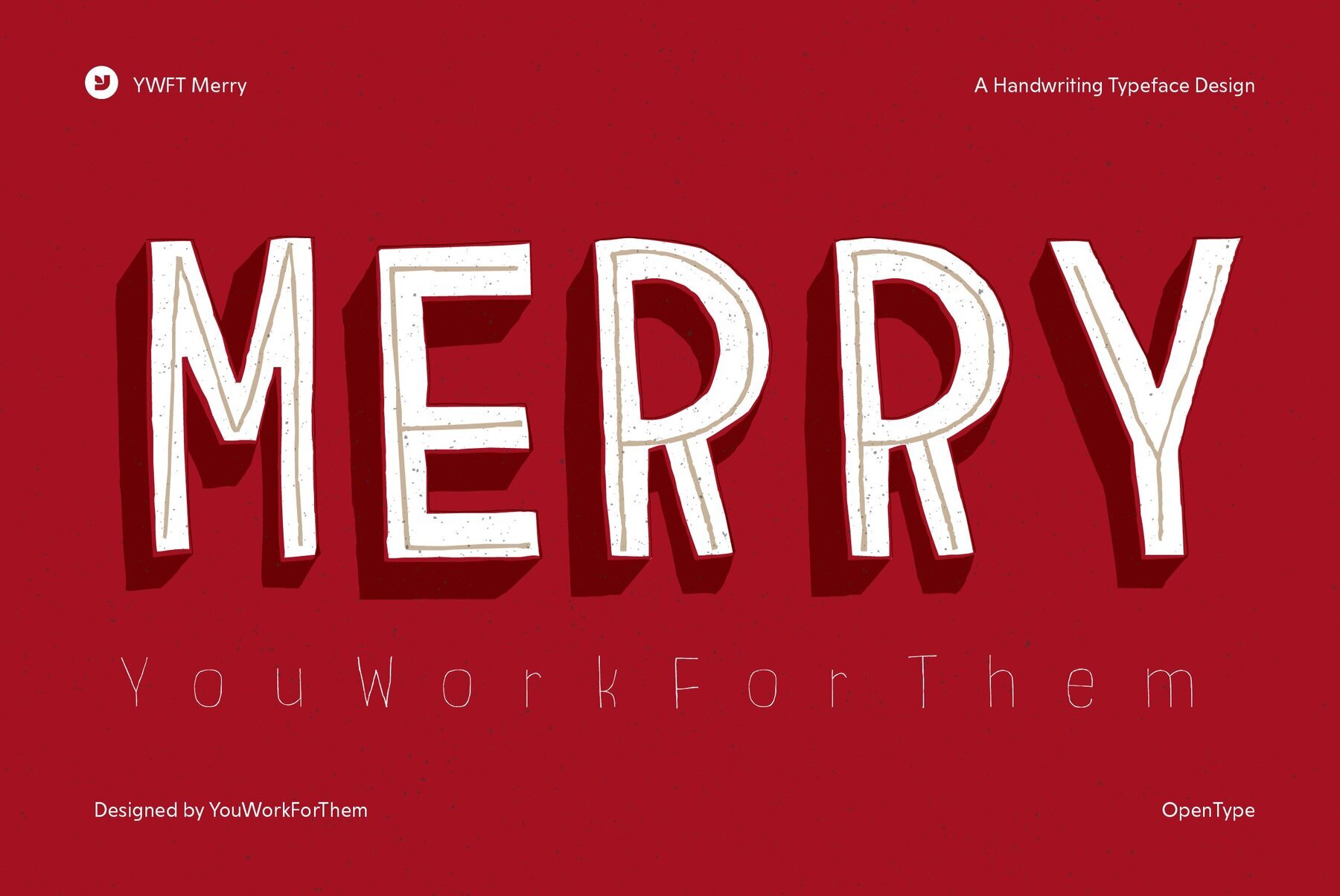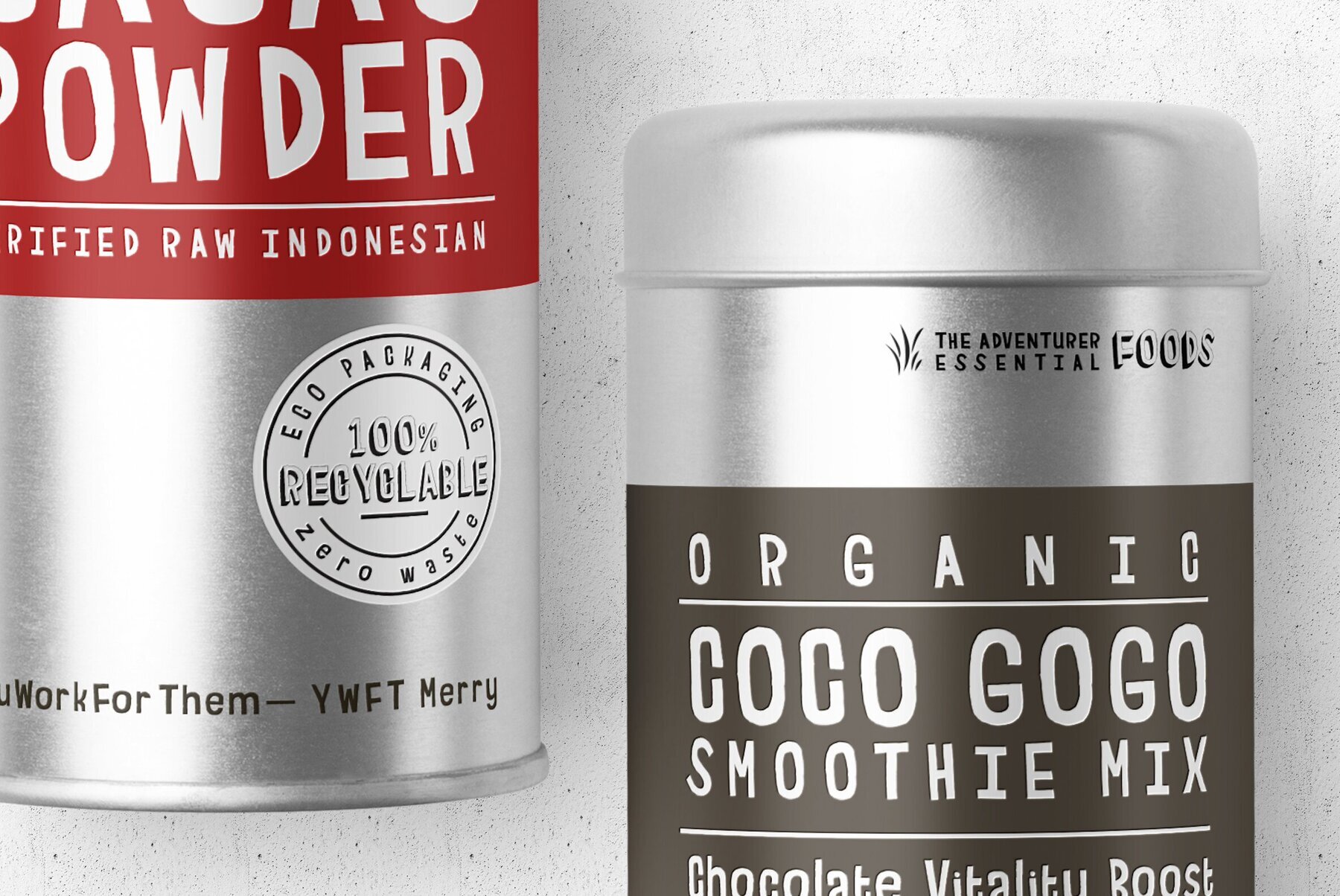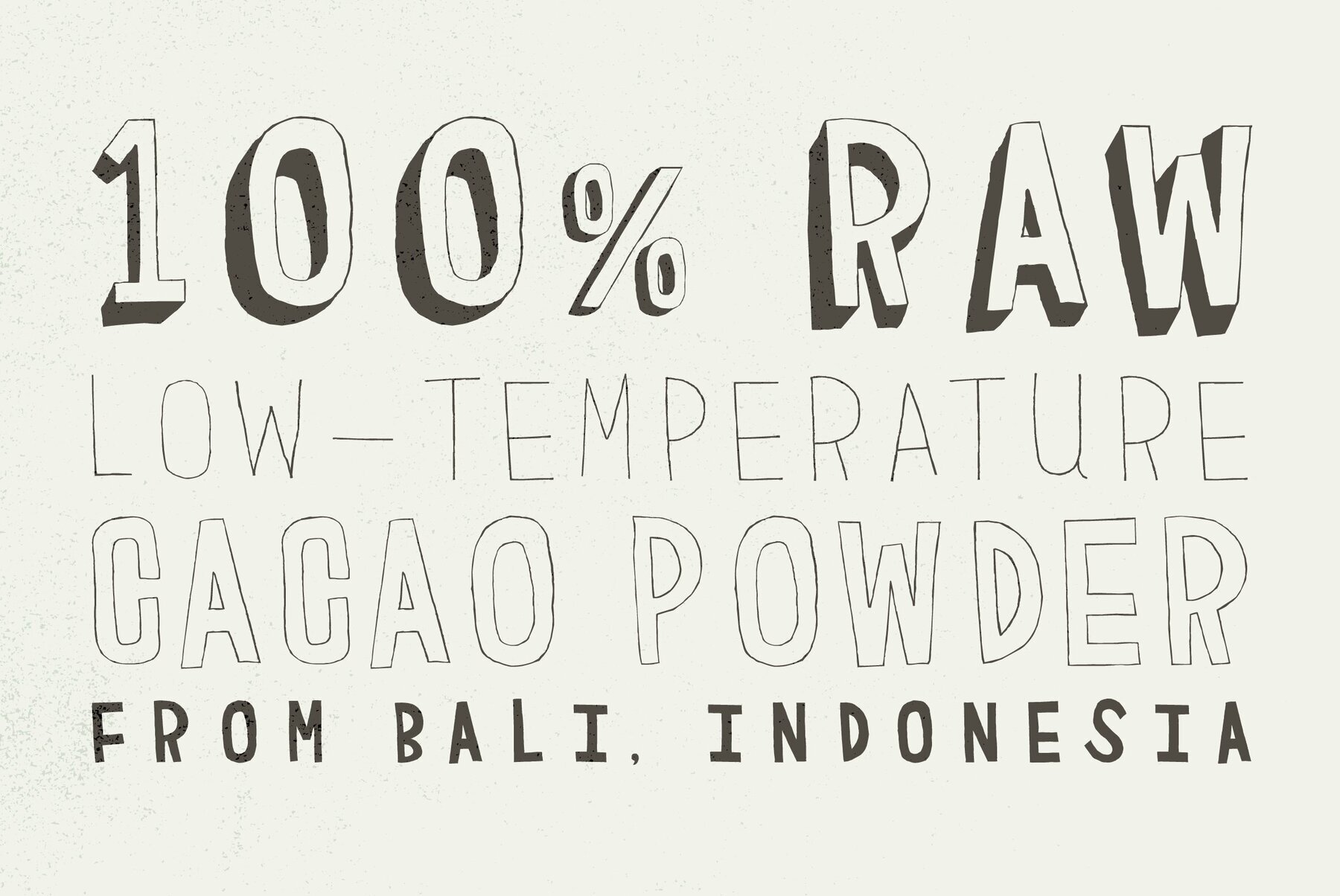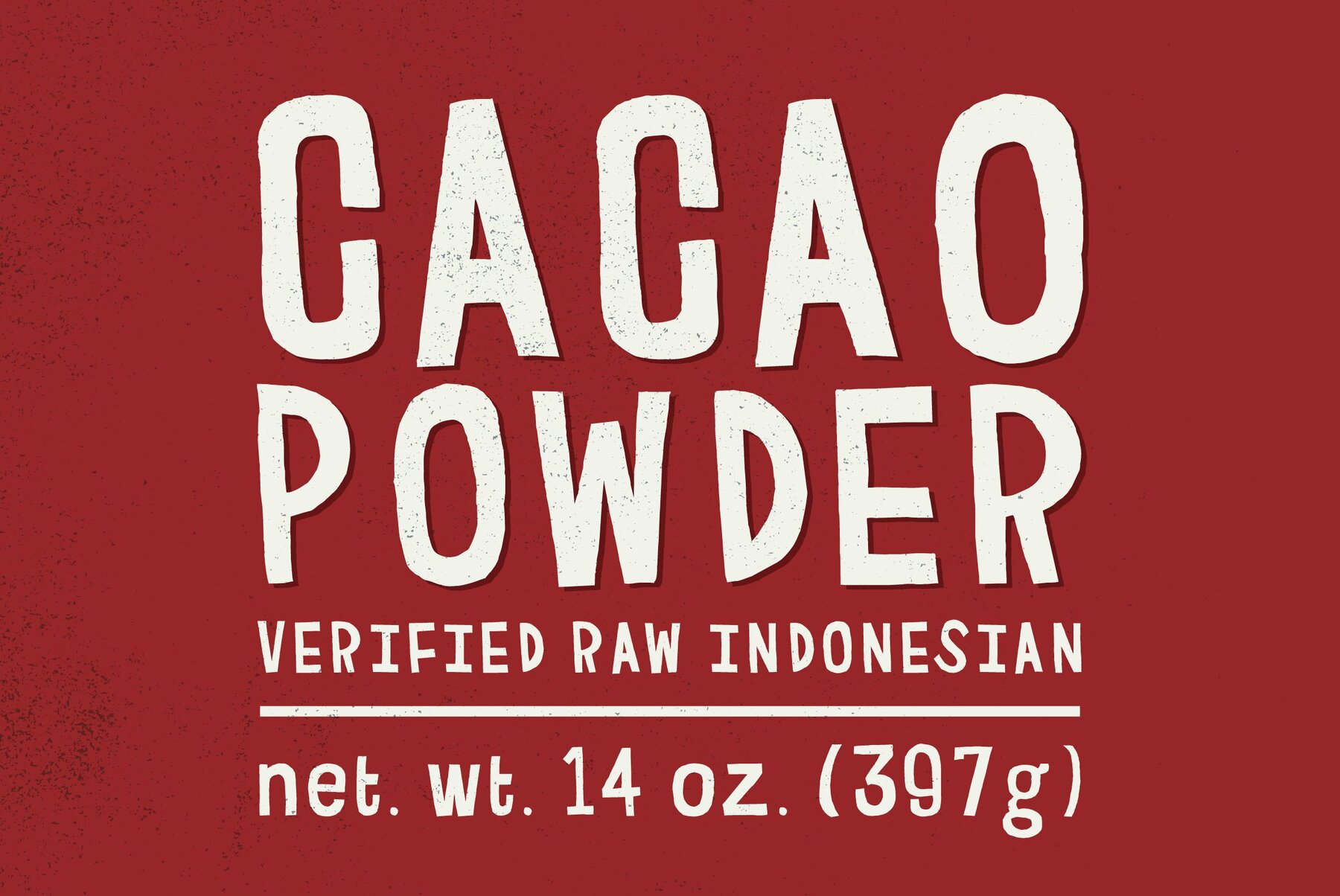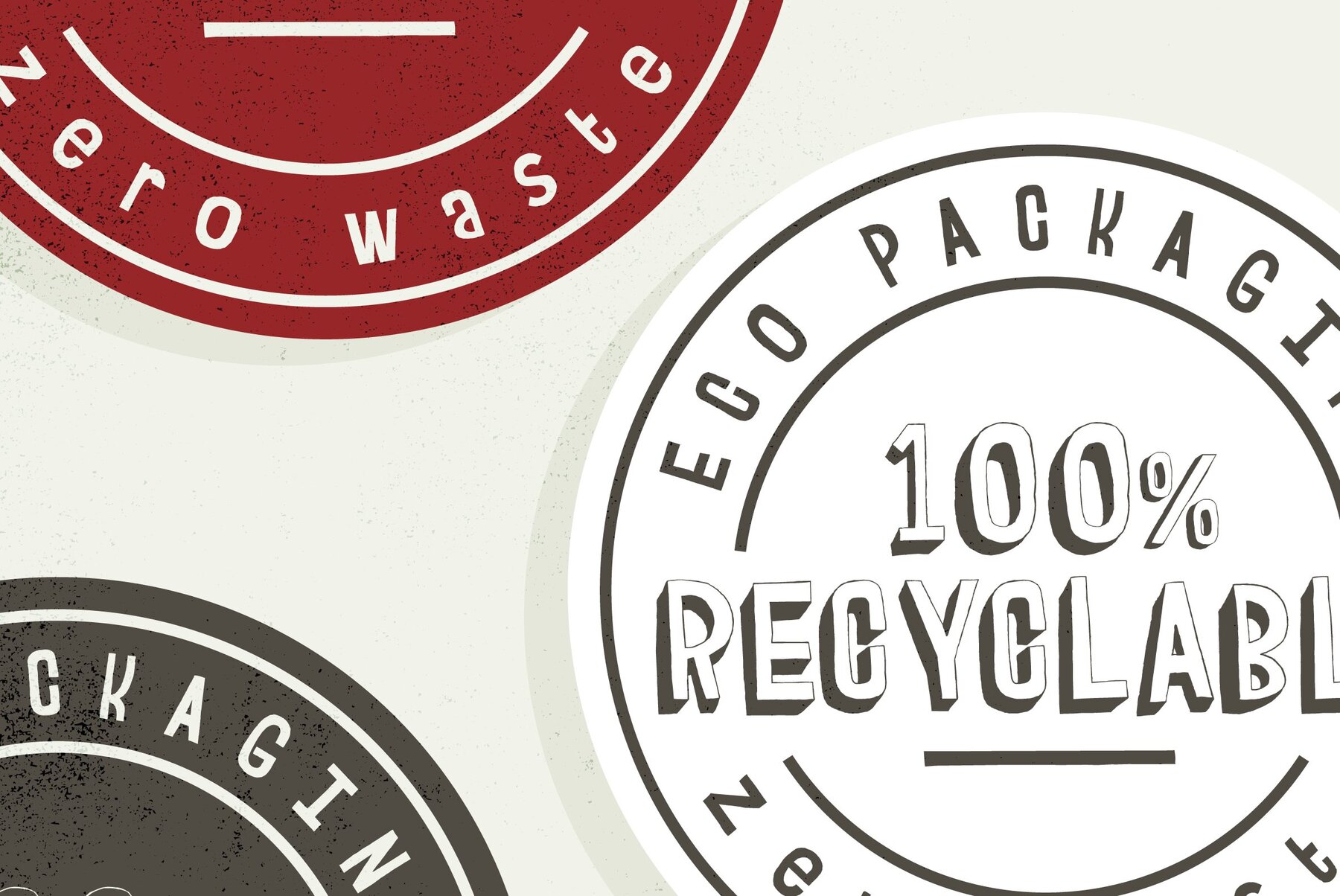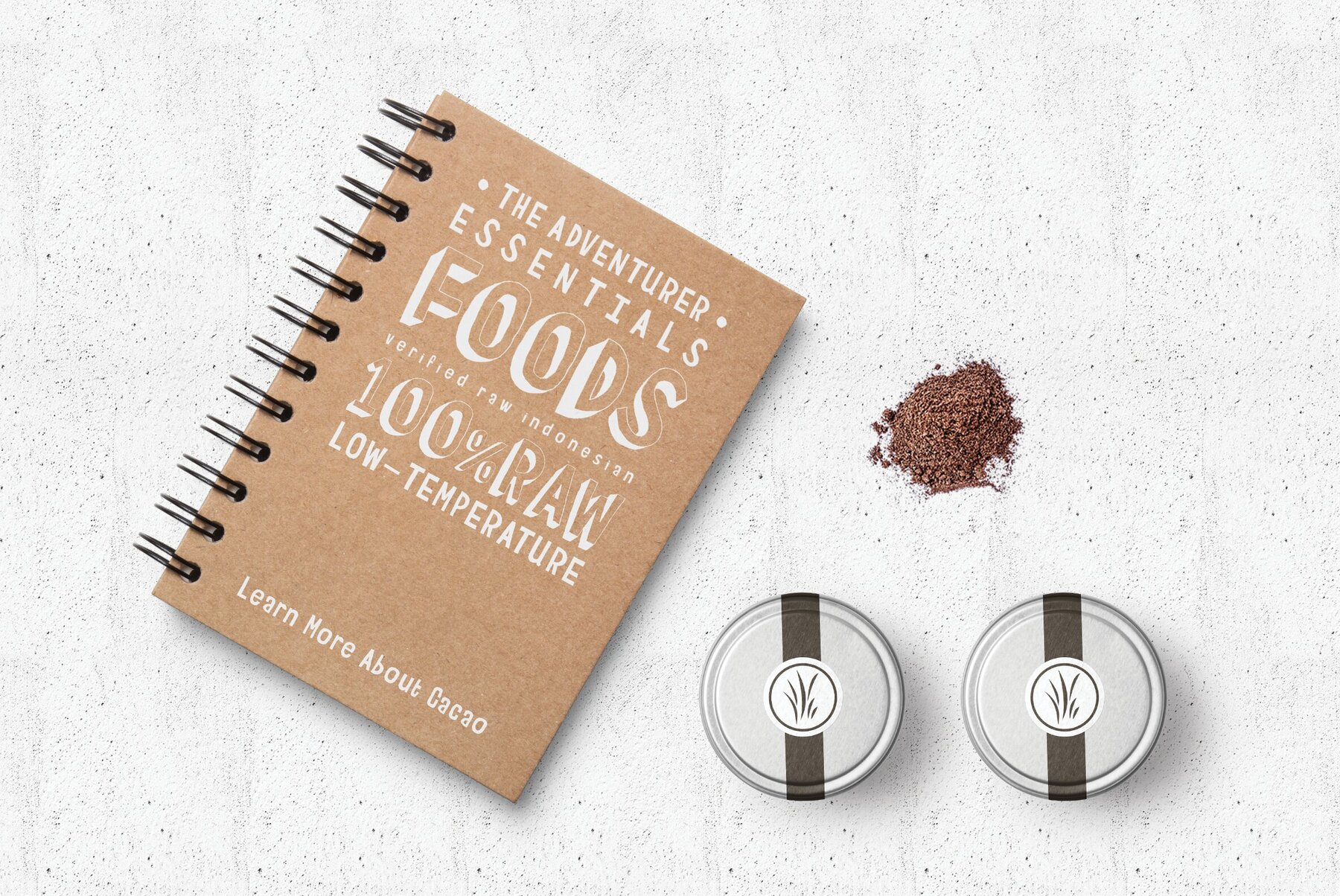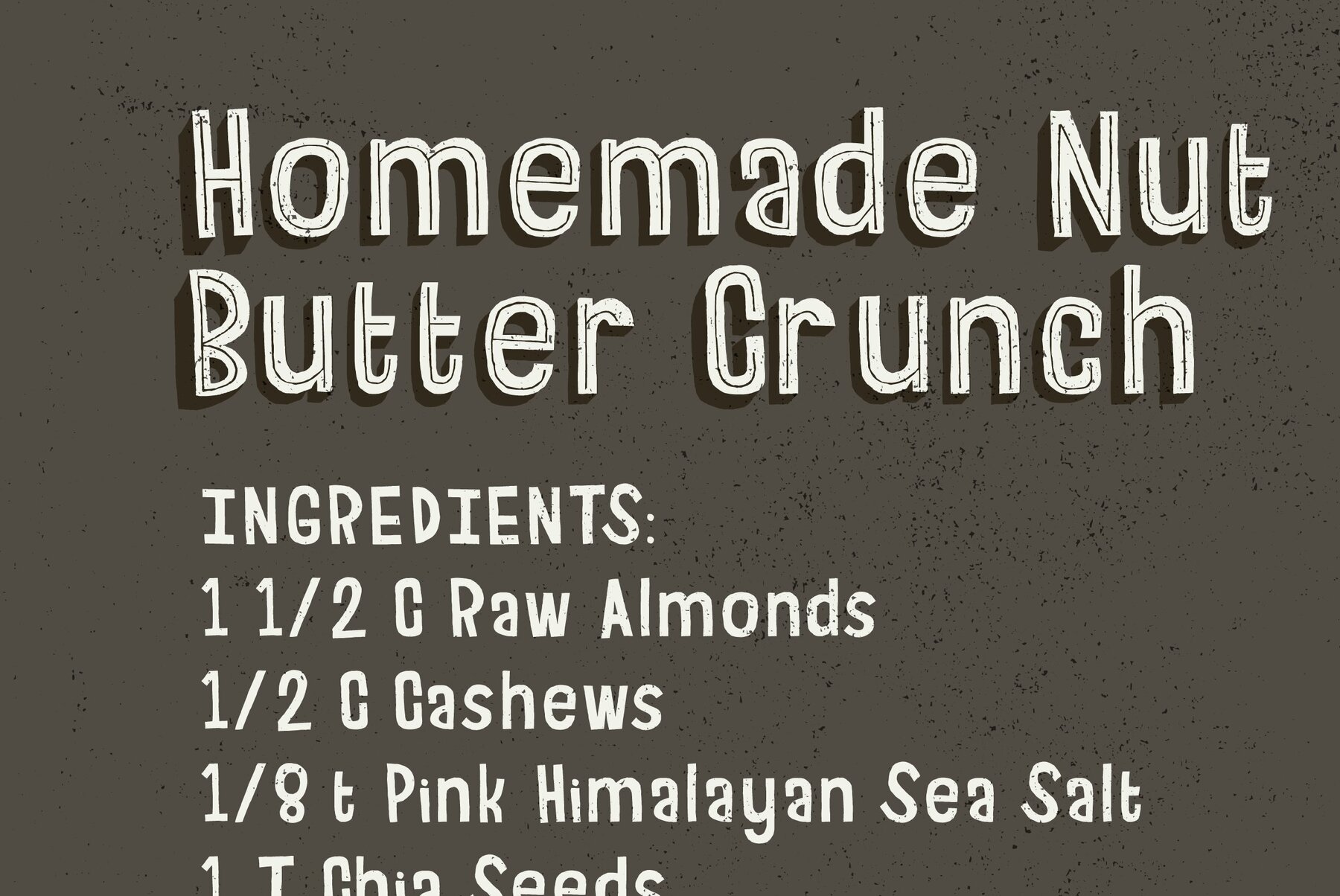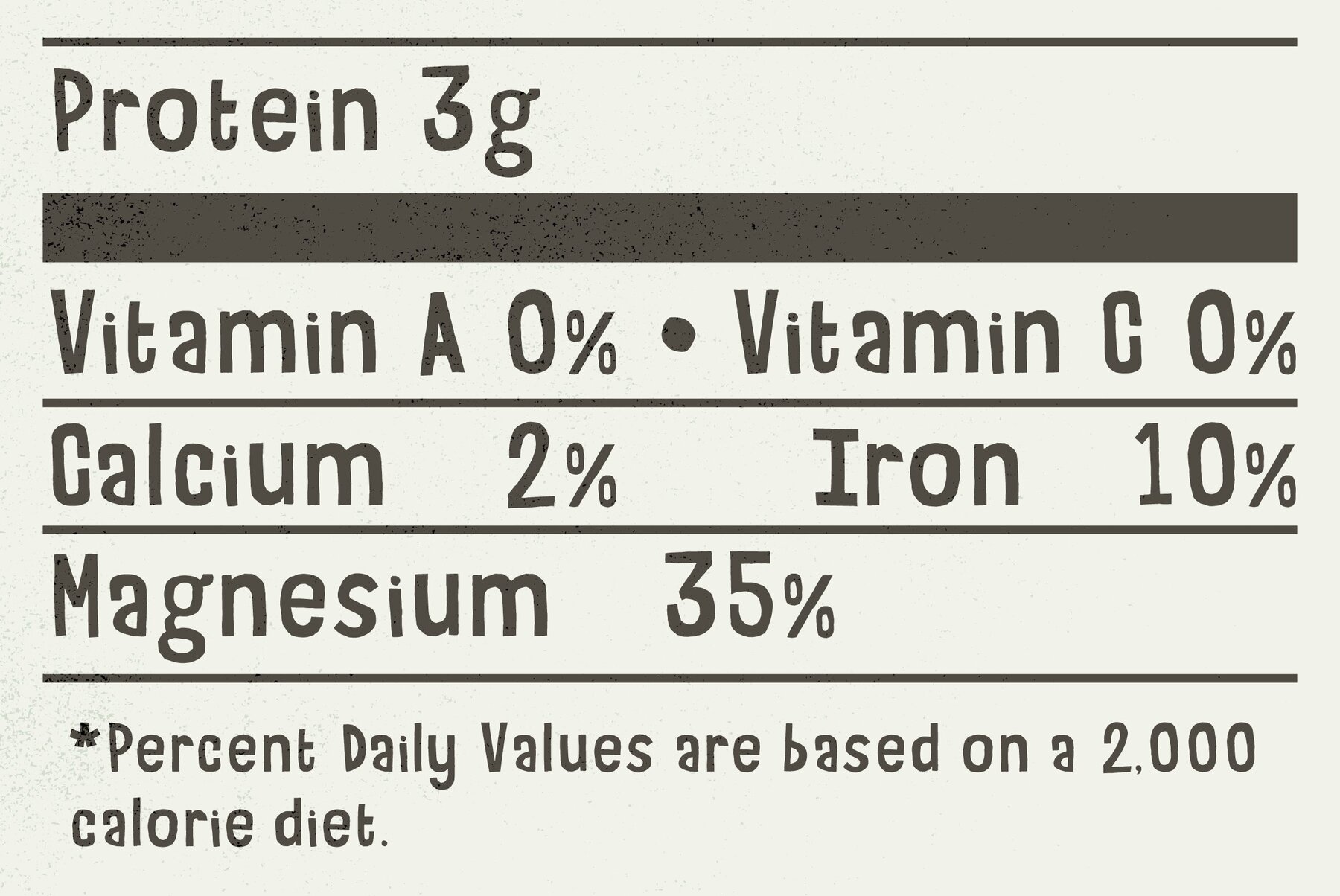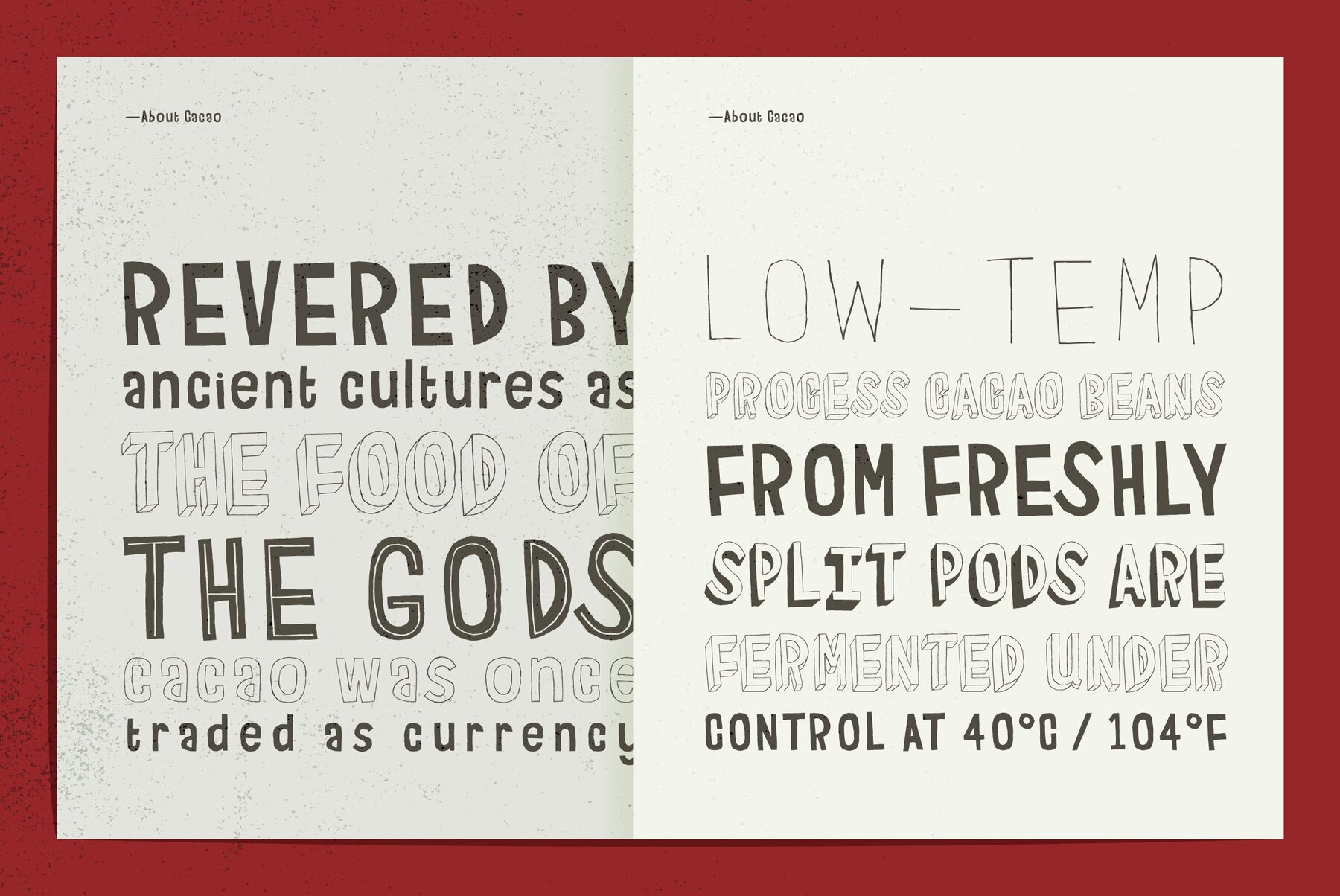
YWFT Merry Font
by YWFT Jeff Rogers
YWFT Merry is an original Jeff Rodgers handset design, now converted into a working system font by the designers at YouWorkForThem. All the inlines, drop shades, outlines and ornaments of the original artwork has been preserved with great attention to detail. Fans of that Wes Anderson, hand-sketched simplicity will want to grab some of the artisanal primitive impact of YWFT Merry!